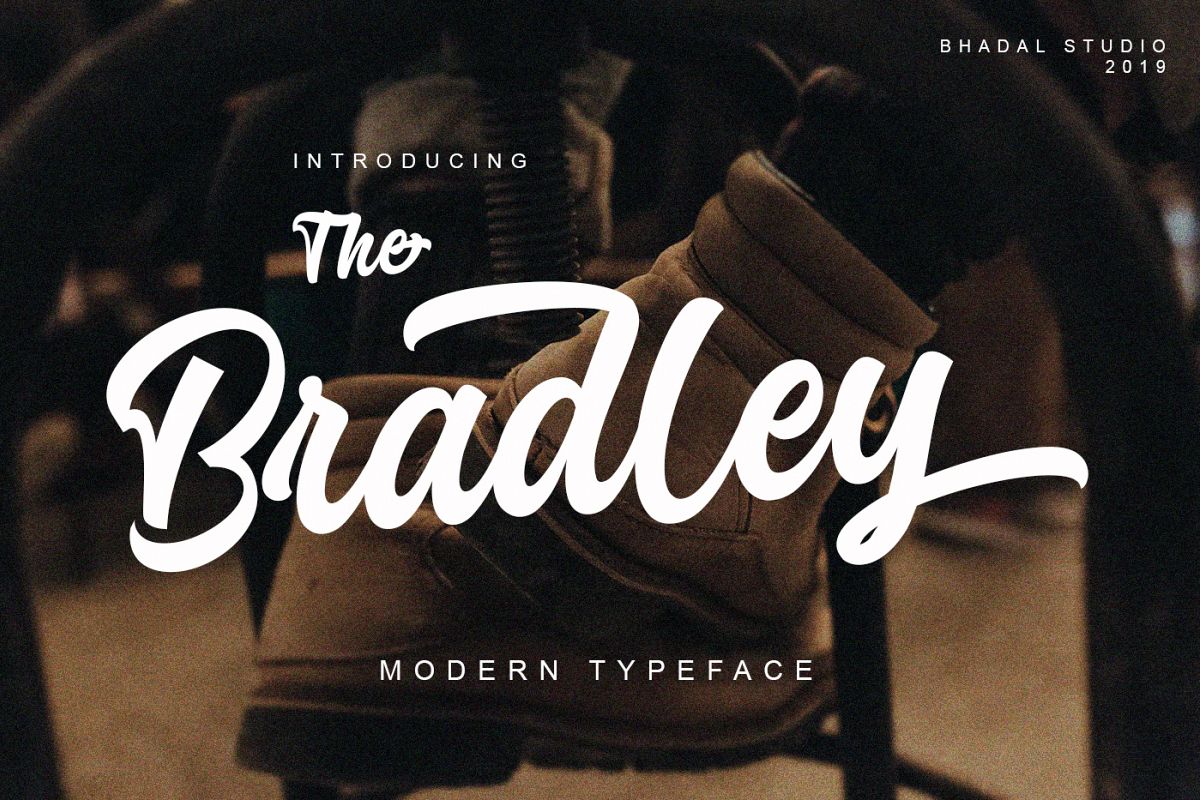
Bradley Typeface
Bradley-Regular
Introducing the Bradley Typeface This font was created to help you designing logotype or lettering style logo for your Brand, and you also can use it for designing all of the graphic stuff such as badge, sign, headline, packaging, title, T-shirt/apparel, Poster, etc.